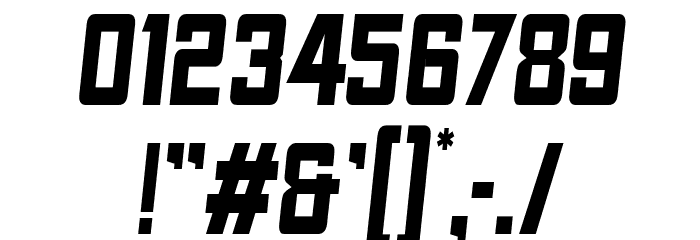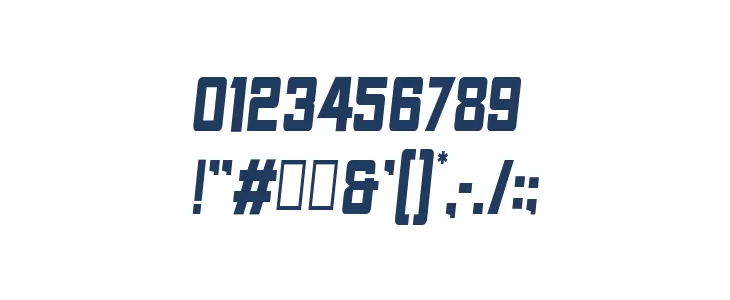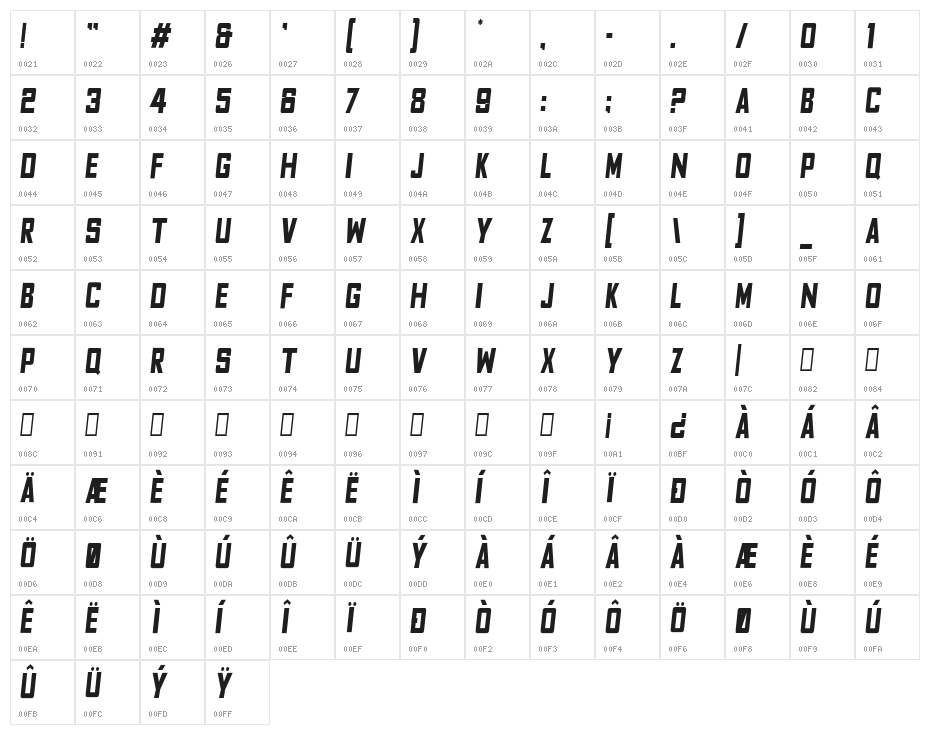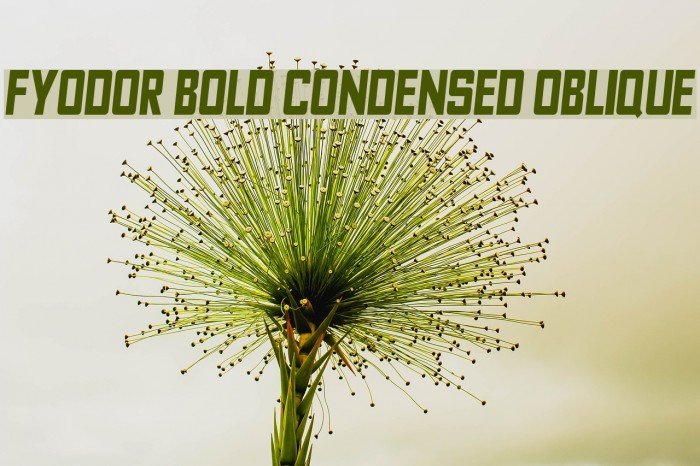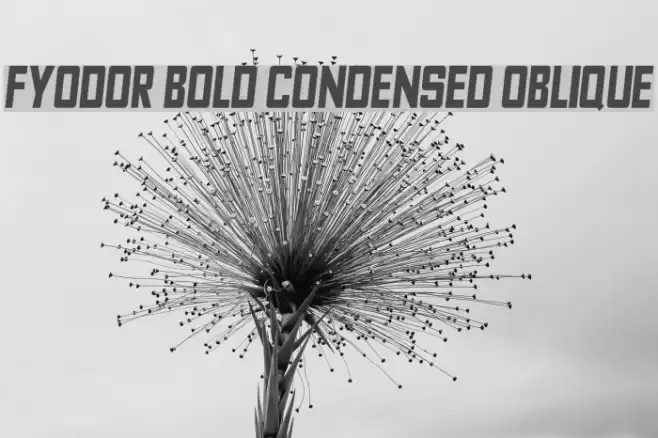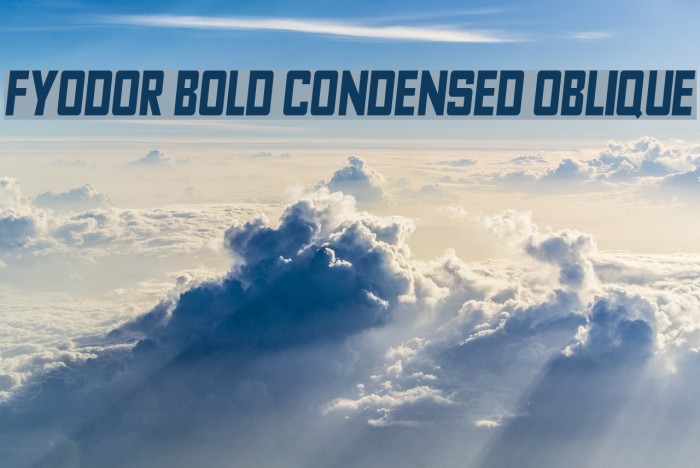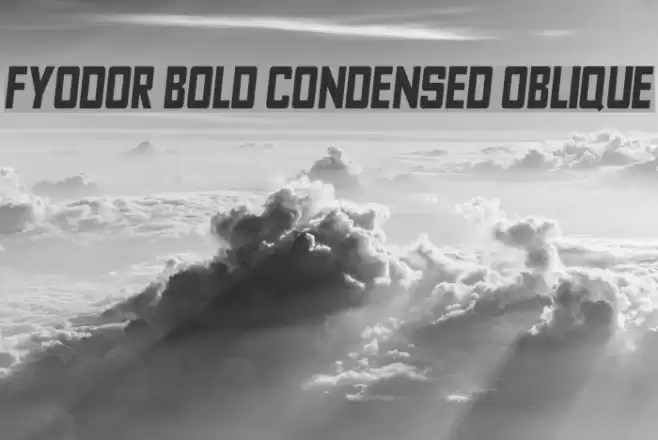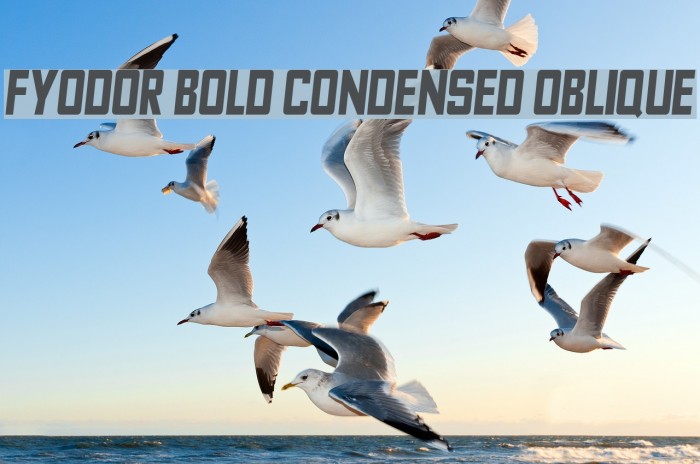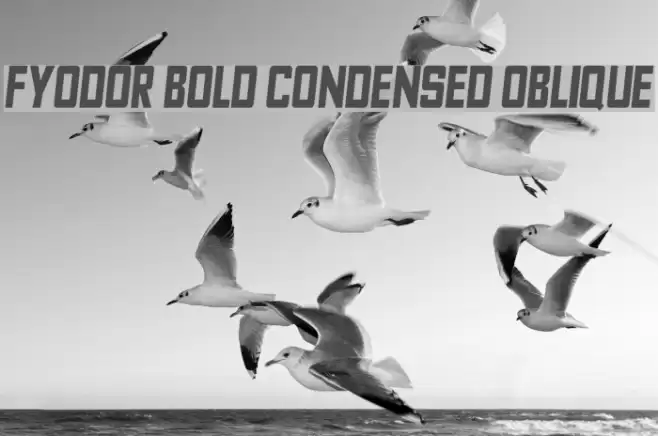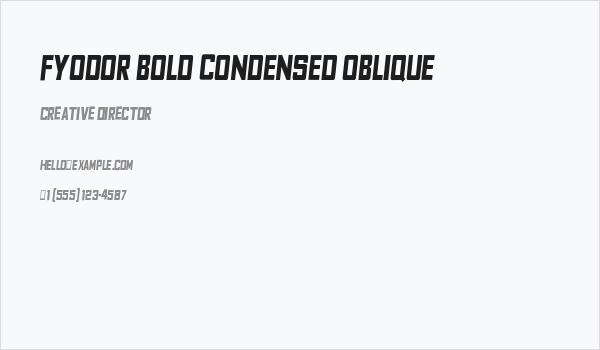
Fyodor Bold Condensed Oblique Font
Fyodor Bold Condensed Oblique Description
This font features a bold and condensed style with an oblique slant, giving it a dynamic and modern appearance. The uppercase letters are prominent and assertive, making a strong visual impact. The numerals and special characters maintain the same boldness, ensuring consistency across all characters. The condensed nature of the font allows for efficient use of space, making it suitable for headlines and titles where space is limited but impact is desired. The oblique angle adds a sense of motion and urgency, enhancing its modern aesthetic.